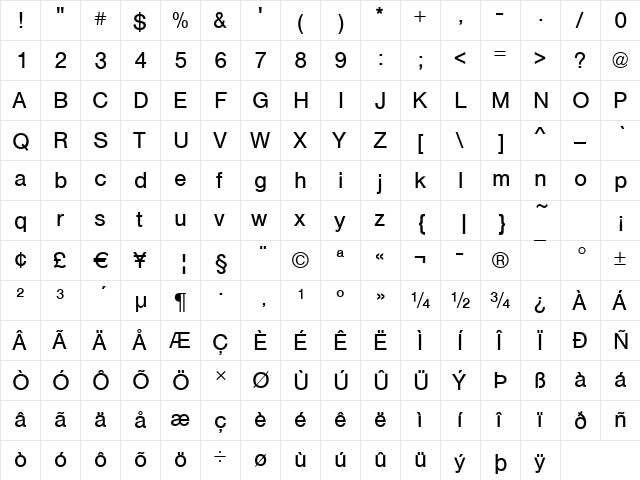
Sans Regular
Design Context for Sans Typeface
Sans takes a measured approach to typography — its balanced proportions and neutral character make it a reliable workhorse for both digital and print work.